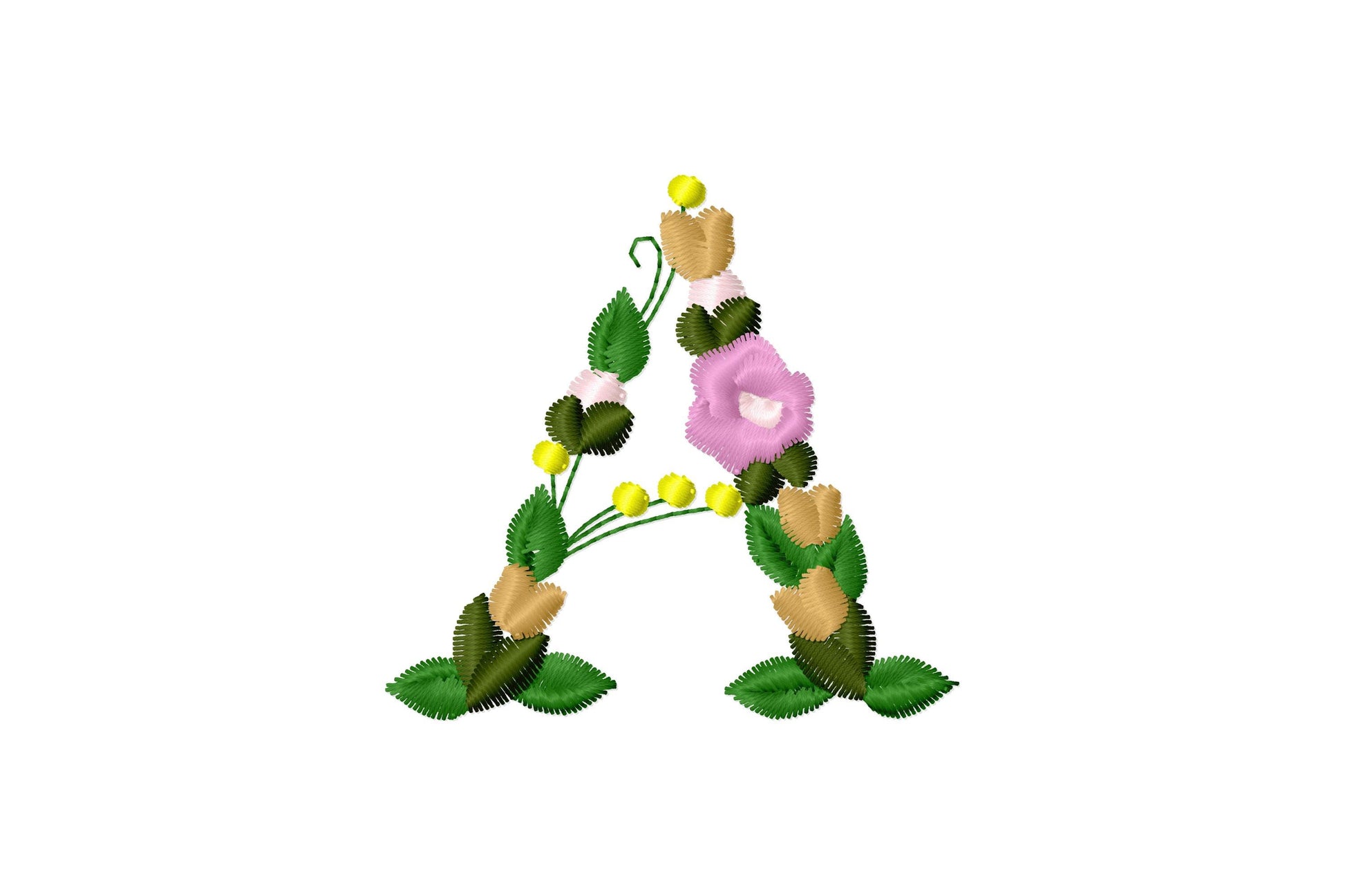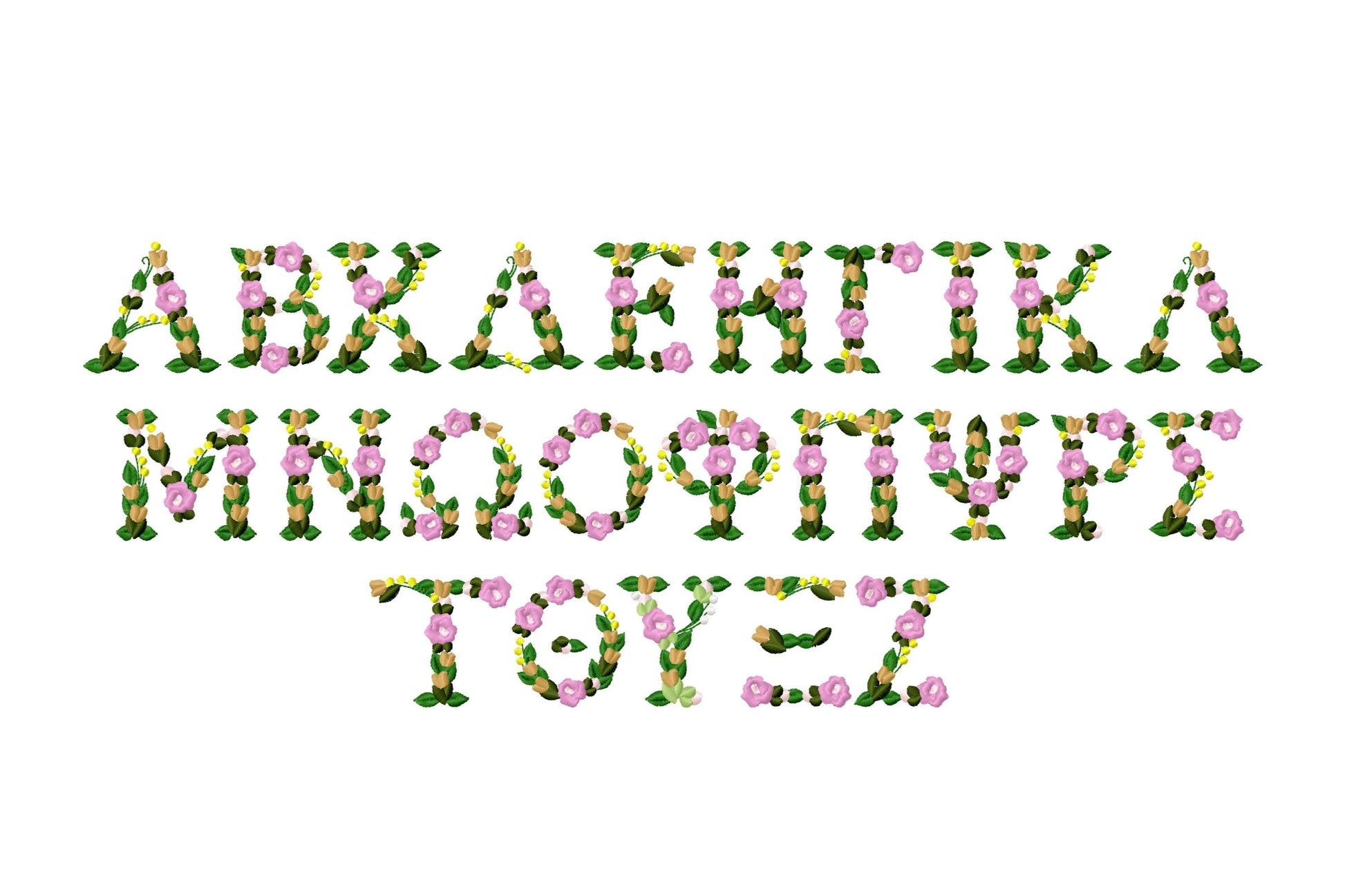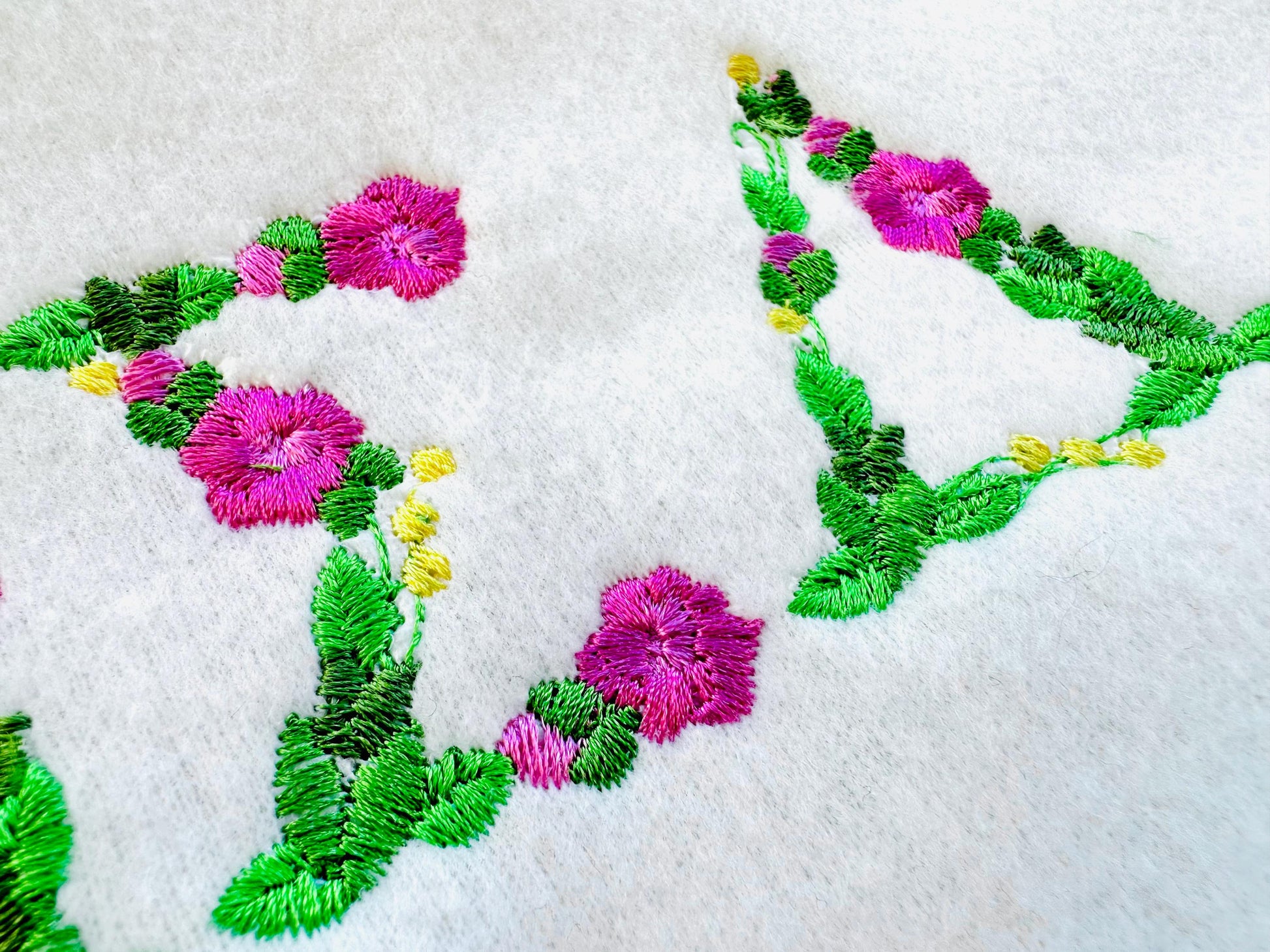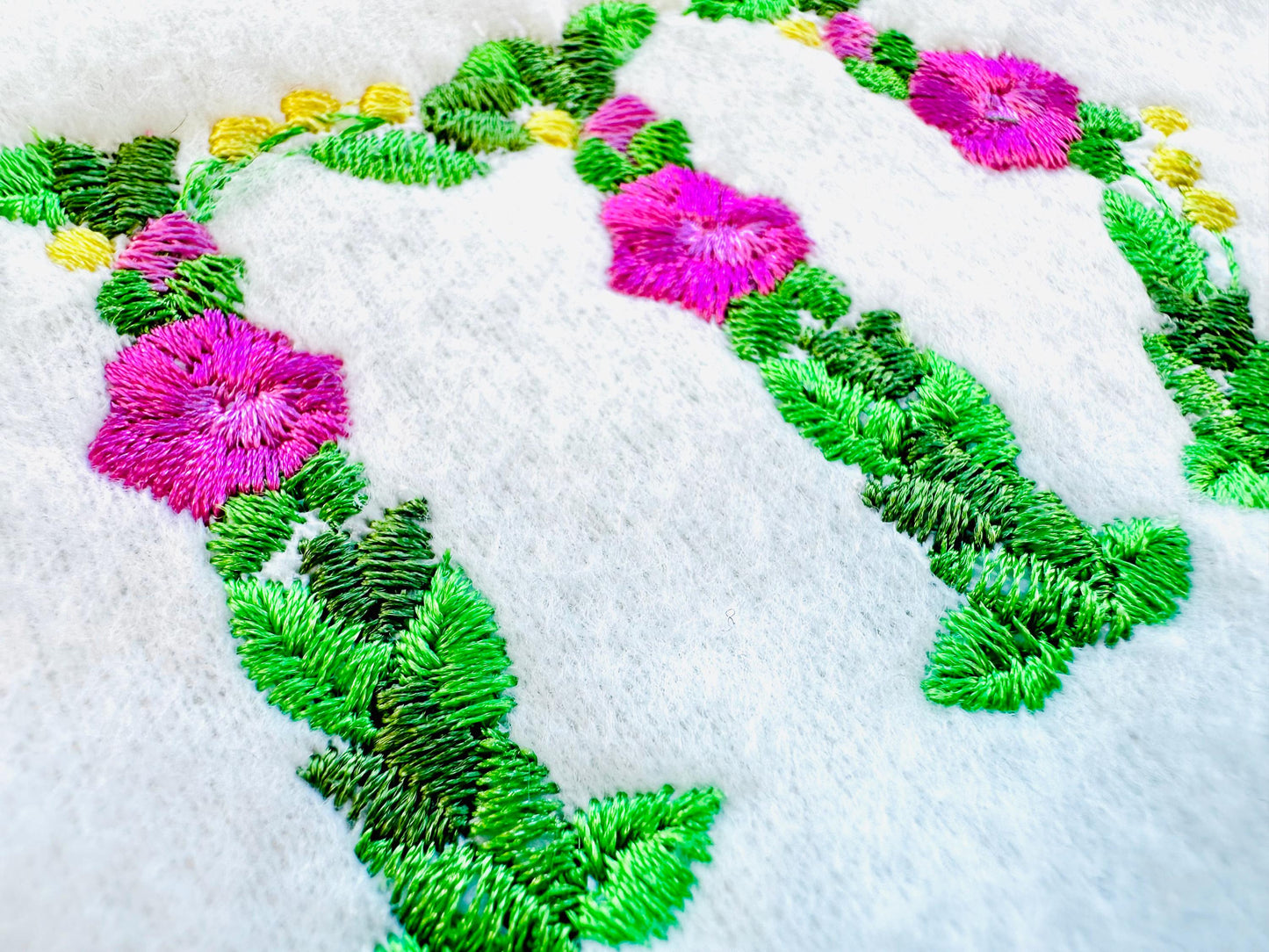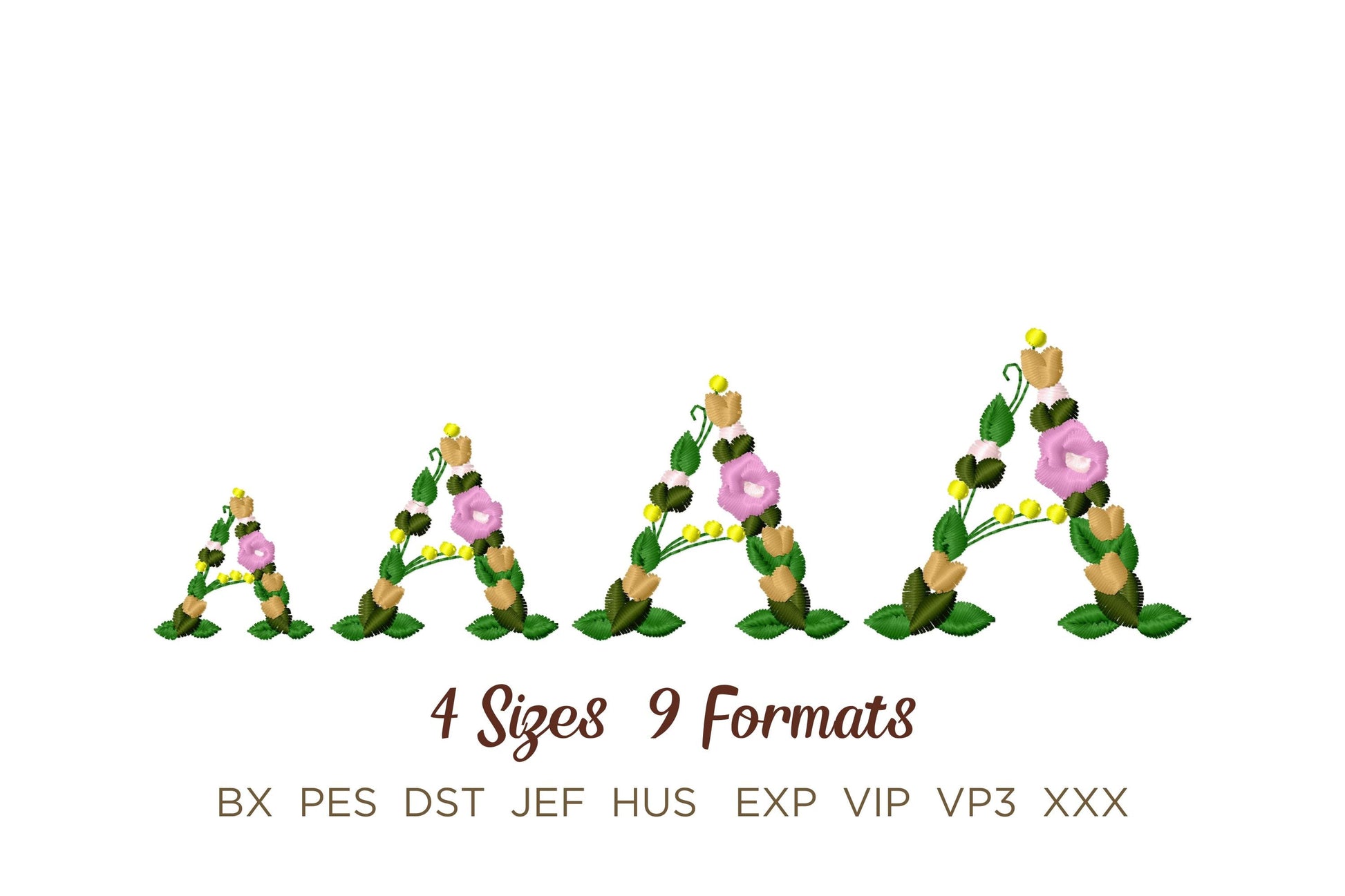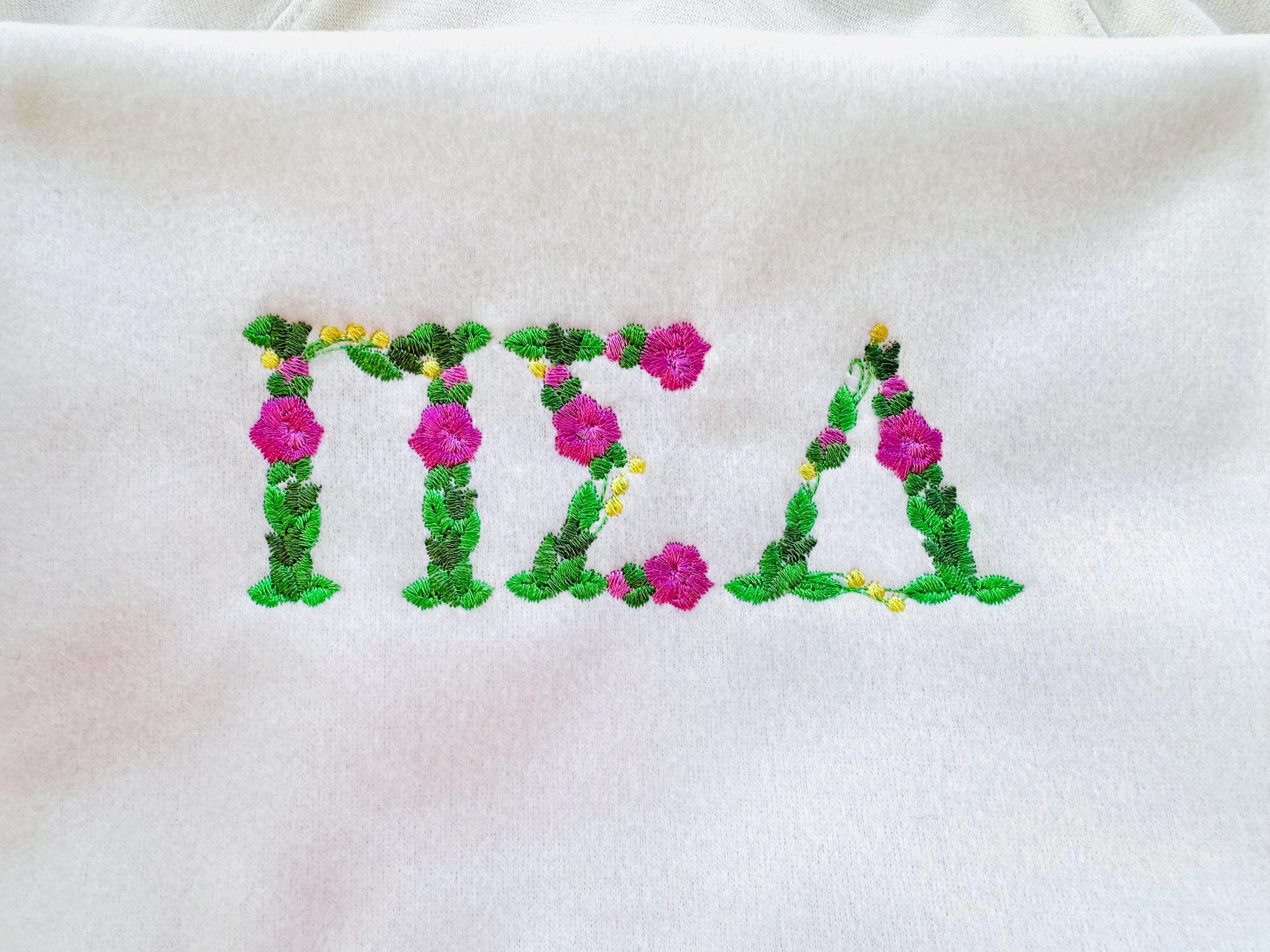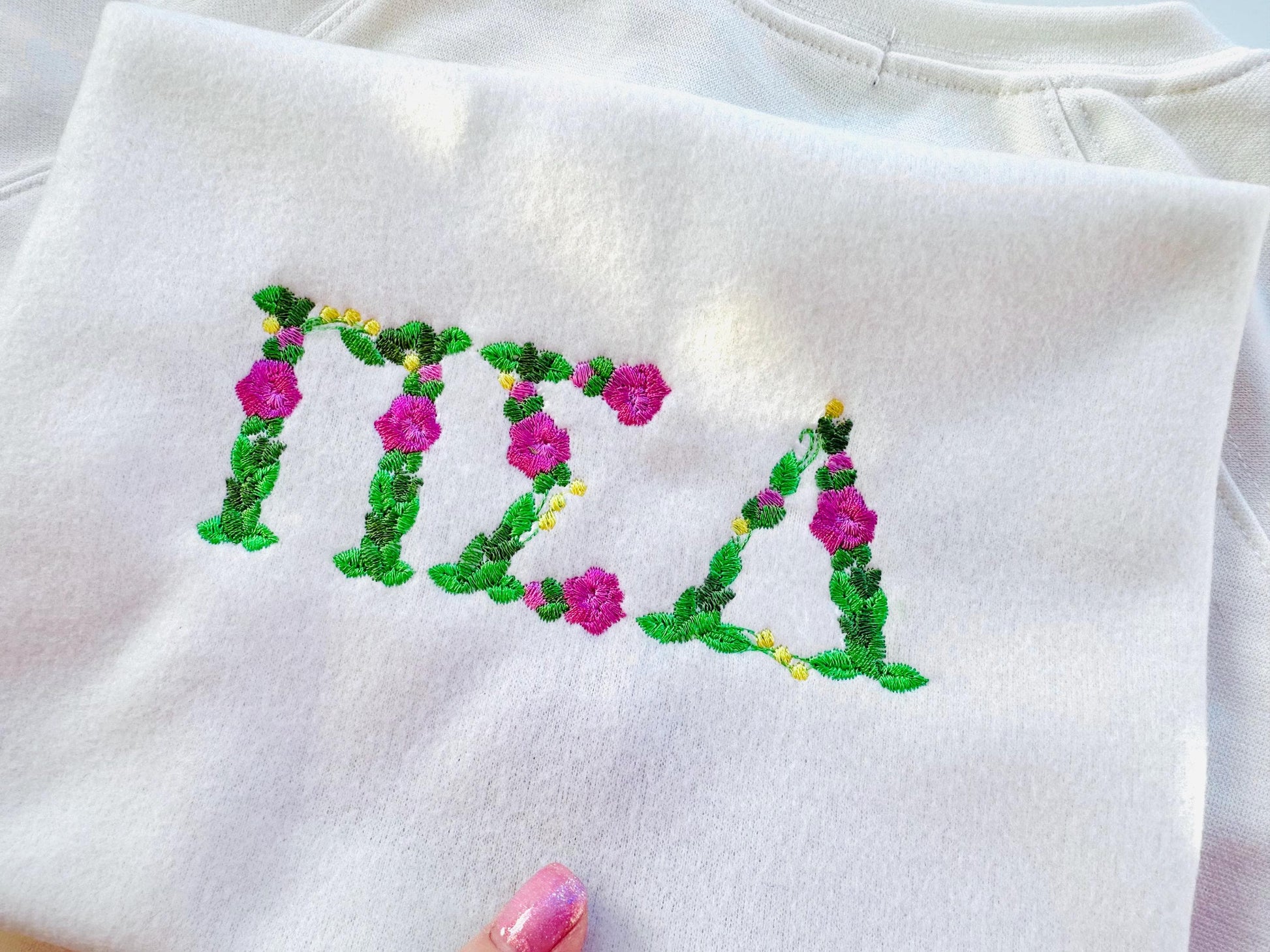
Or click to open the linkSmall Greek letters filled with liberty-style flowers. Pretty for sorority and fraternity shirts, caps, bags and gifts.
All 24 Greek letters in four mini sizes: 1.2, 1.8, 2.2 and 2.6 inches. Full floral fill.